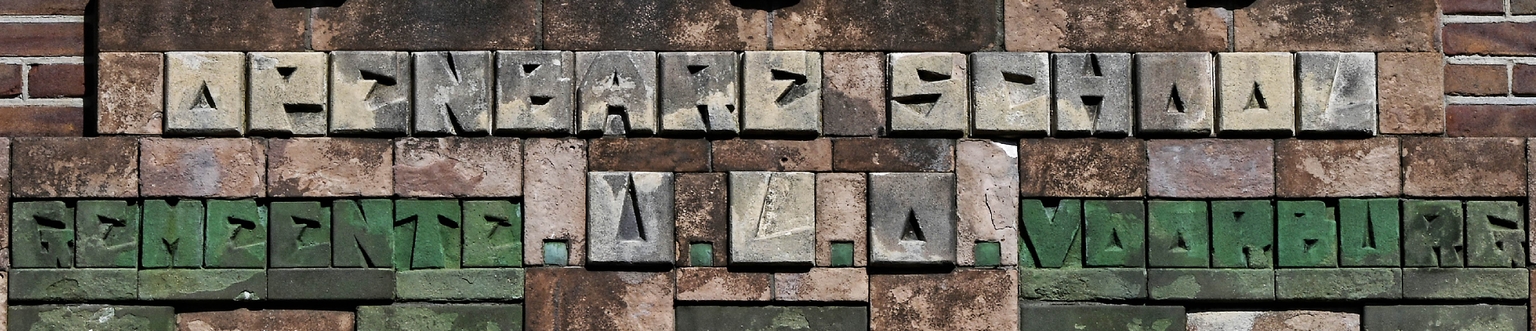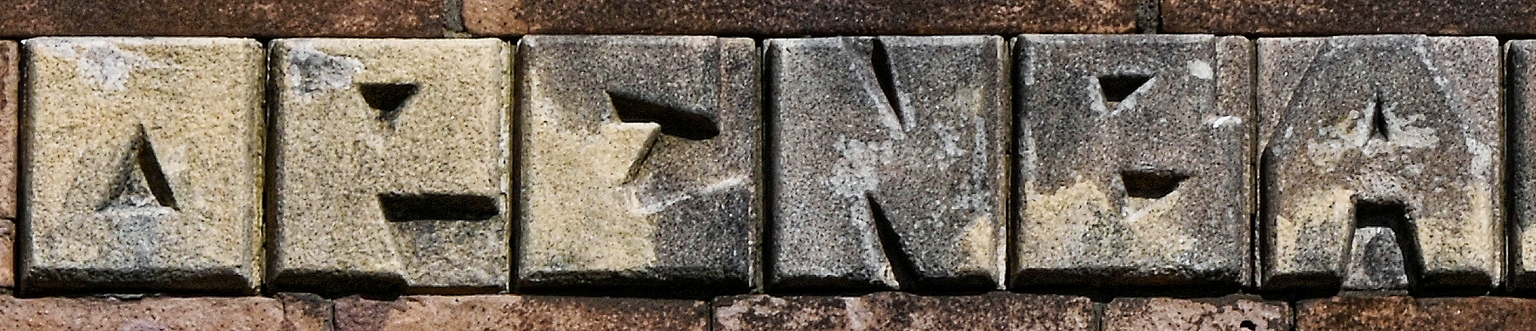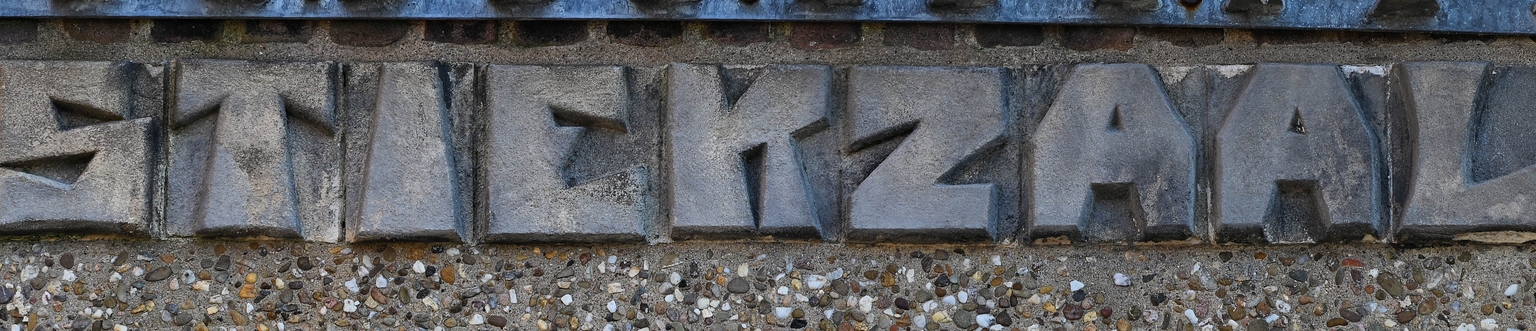
Kasimir
Kasimir is a typeface inspired by the unique architectural lettering found at the entrance of the Professor Casimir School, located at Oosteinde 261, 2272AE, Voorburg, Netherlands. The school building, inaugurated in 1927, was designed by architect W. van der Sluis in a style strongly reminiscent of the Amsterdam School and influenced by Expressionist principles. The original lettering—carved in stone with blocky, angular forms—stands as a rare and expressive example of typographic experimentation in Dutch school architecture of the period.
In early 2025, Ramiro Espinoza photographed and studied the original letters in detail. Intrigued by their eccentric construction, he digitized the alphabet, carefully redrawing it while correcting inconsistencies and extending the character set. The result is Kasimir, a quirky and charismatic font that captures the expressive spirit of the original while offering functionality for contemporary design needs. Ideal for posters, signage, websites, and unique identity projects, Kasimir exudes personality and historical depth.
Designer
Ramiro Espinoza